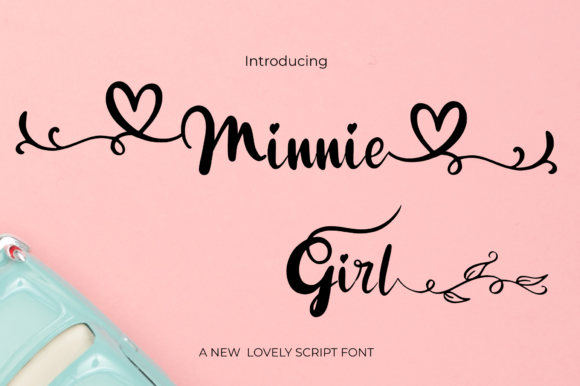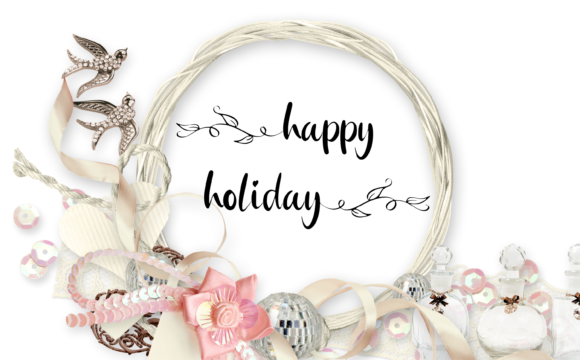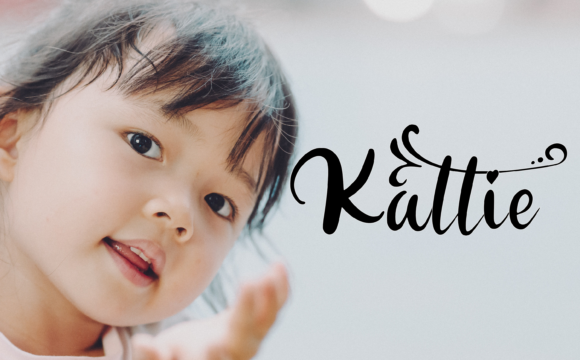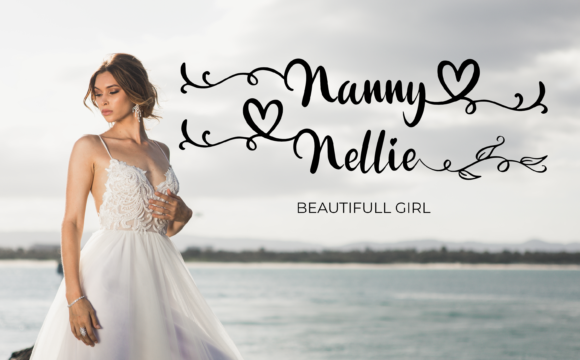
Minnie Font
About the Minnie Font
We are excited to introduce Minnie Font, a must-have typeface for any serious designer. Minnie is a lovely font. This font was designed by handwriting, and it has a modern and unique form of calligraphy, the writing style is very natural
Can be used for various purposes such as headings, logos, wedding invitations, t-shirts, letterhead, signage, labels, news, posters, badges, etc.
Minnie’s natural, handwritten style makes it ideal for headlines, short text blocks on branding materials, and elegant invitations. Its charm works well on packaging for artisanal products or boutique brands, adding a touch of handcrafted authenticity. However, its calligraphic nature makes it less suitable for body copy or UI elements where readability over long stretches of text is crucial.
The font’s personality is undeniably friendly and approachable, with a touch of modern elegance. This makes it a perfect fit for brands conveying warmth and sophistication, such as cafes, florists, or lifestyle businesses.
For effective pairings, consider complementing Minnie with a clean sans-serif like Lato for body text or a geometric sans-serif like Montserrat for a more modern contrast. A subtle serif like Playfair Display could also create a classic, yet balanced pairing, enhancing Minnie’s inherent elegance.